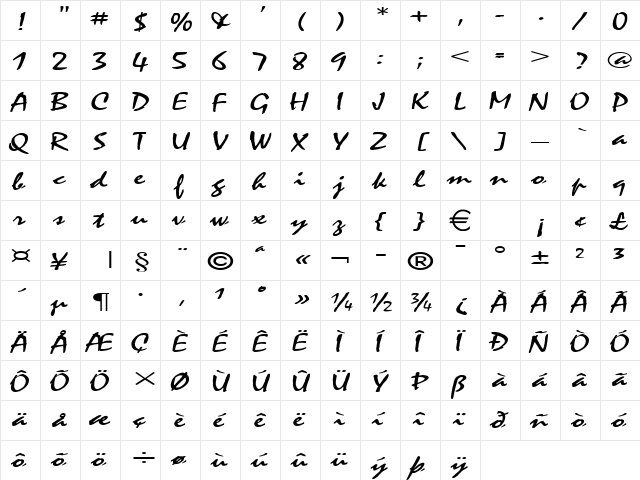
MysticExtended Normal
Design Context for MysticExtended Typeface
MysticExtended is a composed and adaptable typeface that performs quietly and consistently across a wide range of design contexts.